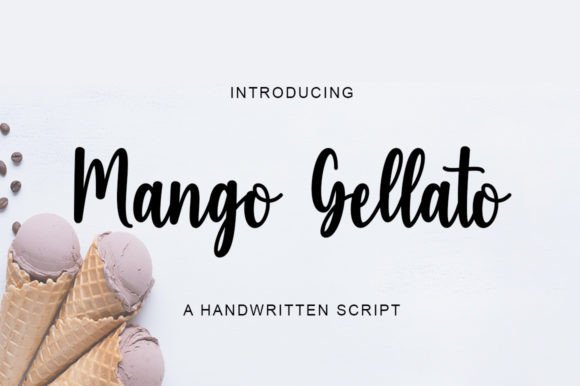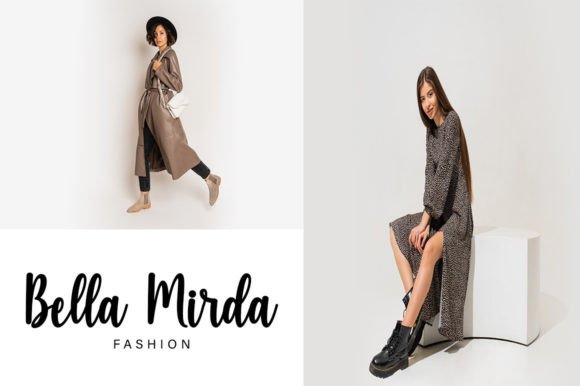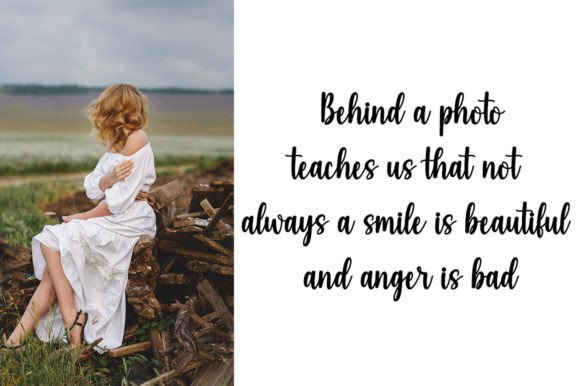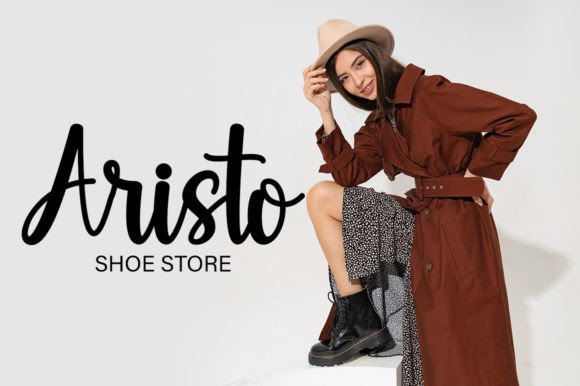
Mango Gellato
About Mango Gellato
Mango Gellato is a lovely and timeless handwritten font. It is the best choice for creating eye-catching logos, branding, and quotes. Every letter has a unique and beautiful touch, which will make your design come alive! This font is PUA encoded which means you can access all the glyphs and ligatures with ease!